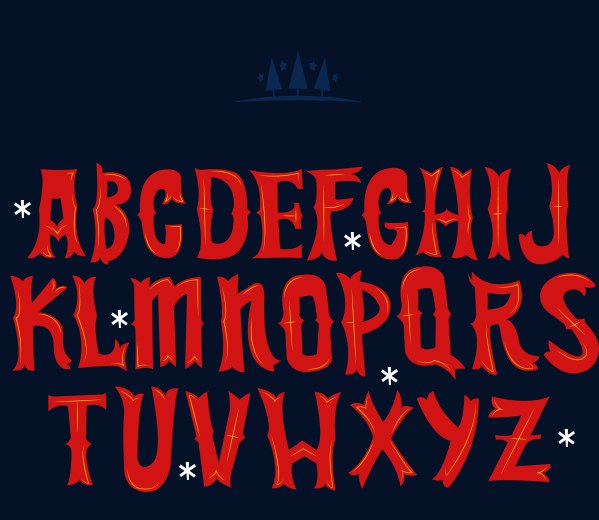
Christmas Time Display Font
The Christmas Time Display Font is known for its retro style, making it perfect for copying and pasting to give your content a modern and vibrant look.
Style Of Christmas Time Display Font Free